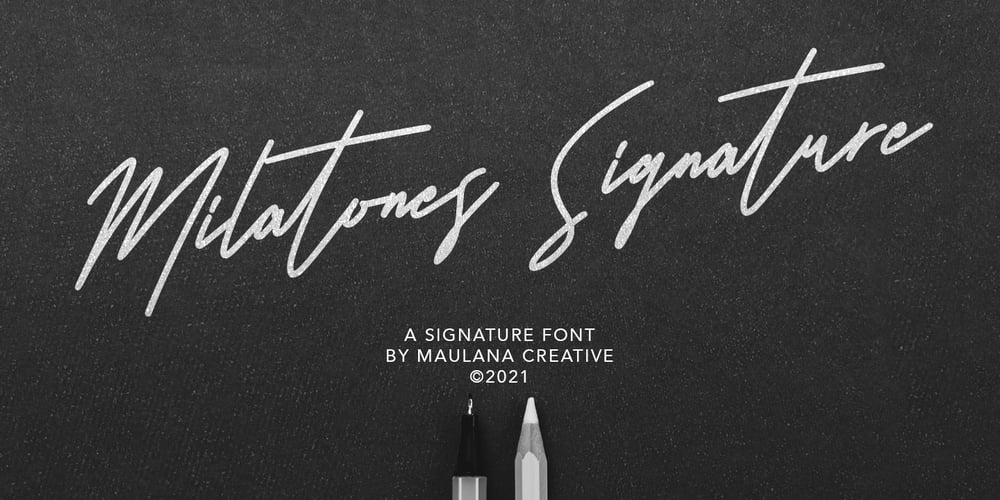
Milatones Signature Font Family was designed by Gilang Maulana and published by Maulana Creative. Milatones Signature contains 1 styles and family package options. Milatones is casual signature font, with clean thin mono-line stroke, super slanted, condensed and fun character. It has Opentype features ligatures of character and lowercase alternate “t”, To give you an extra creative work. Milatones font support multilingual more than 100+ language. This font is good for logo design, Social media, Movie Titles, Books Titles, a short text even a long text letter and good for your secondary text font with sans or serif. Make a stunning work with Milatones font. Cheers, MaulanaCreative